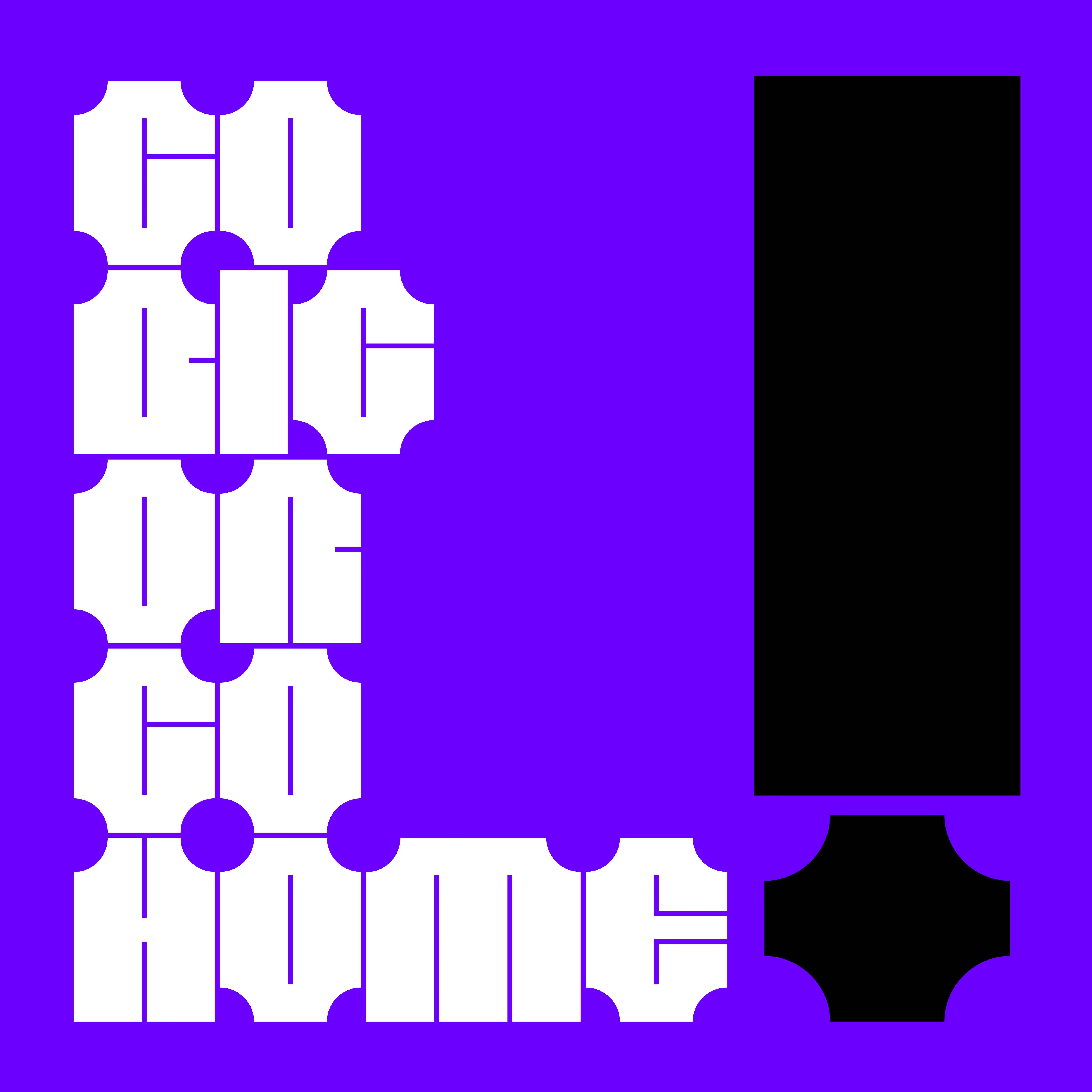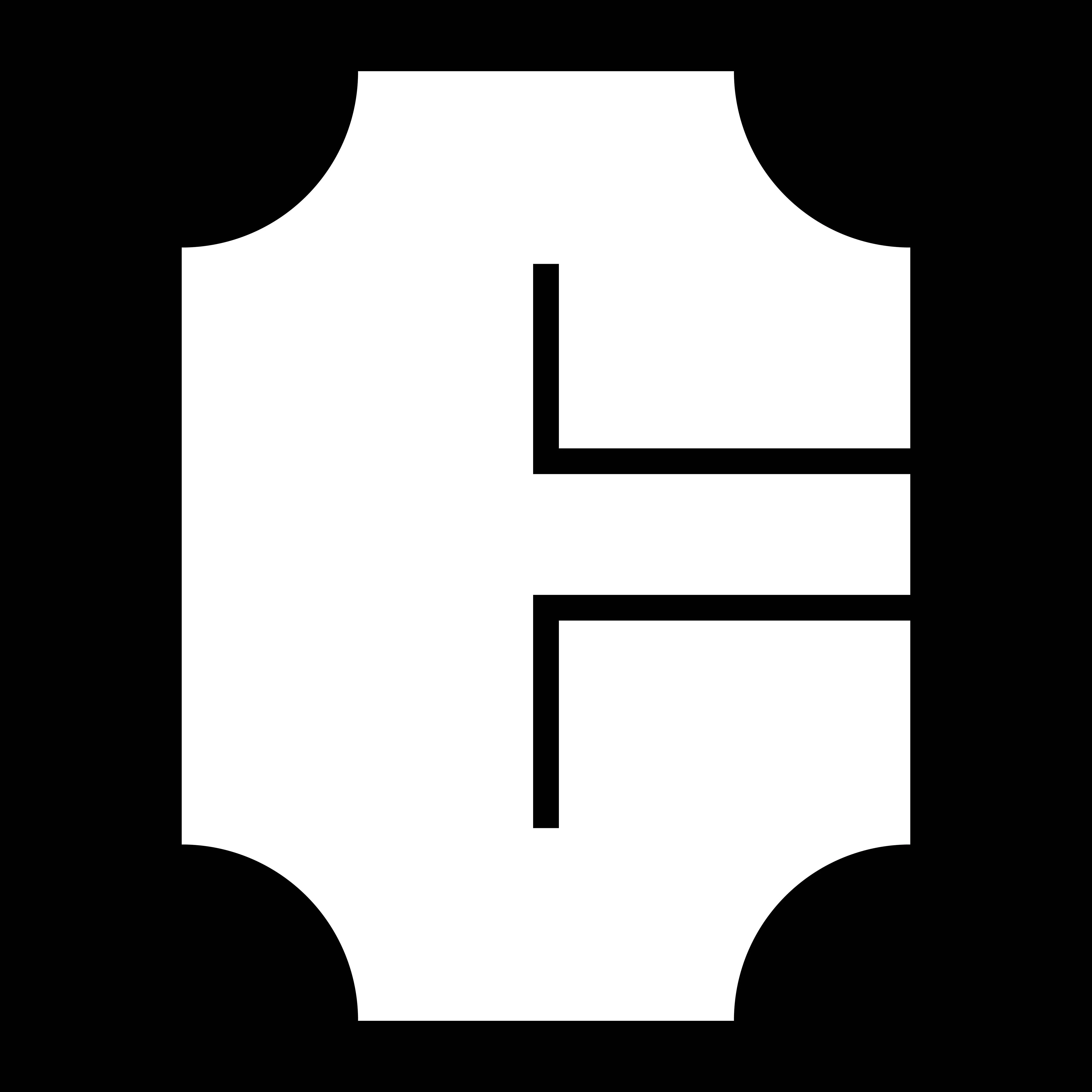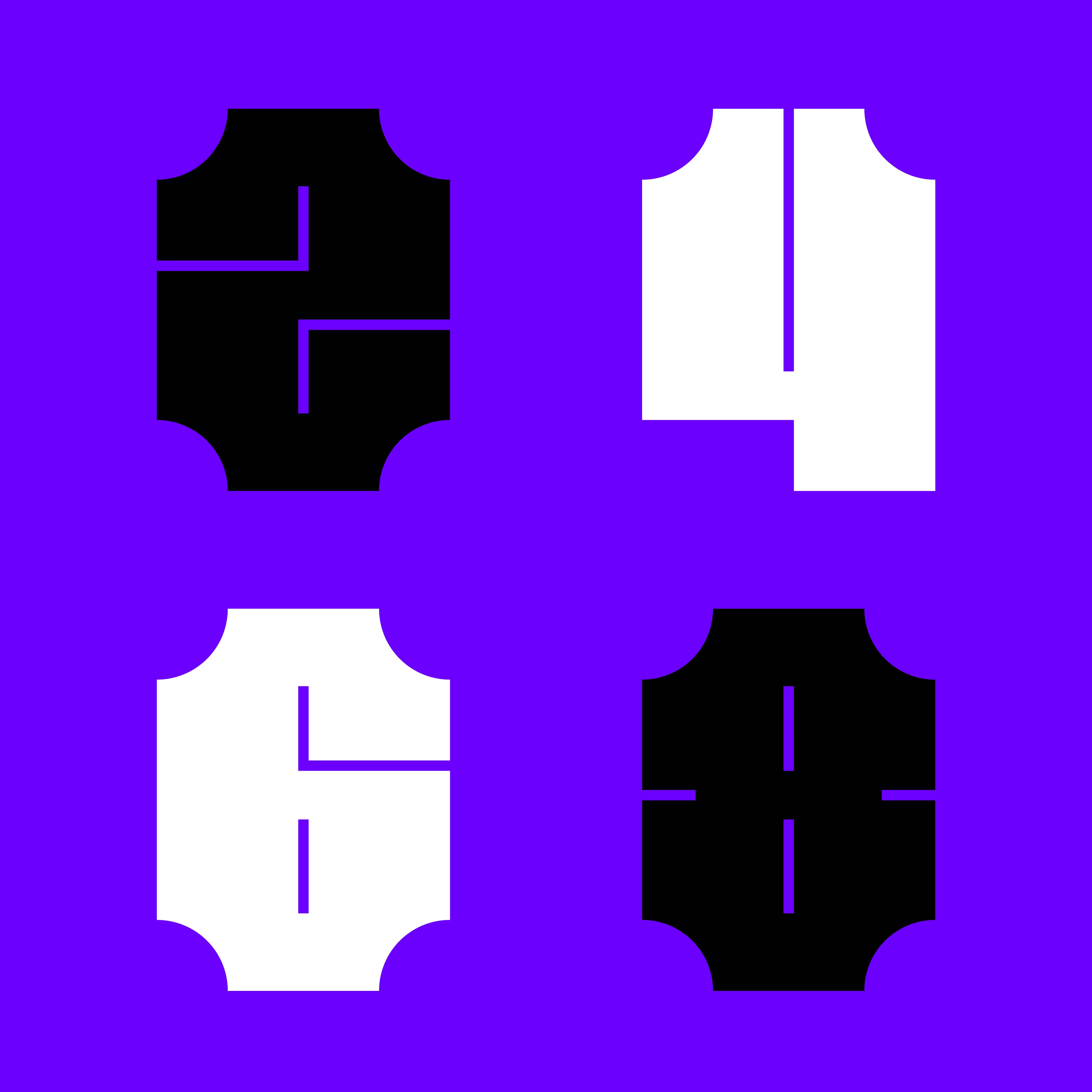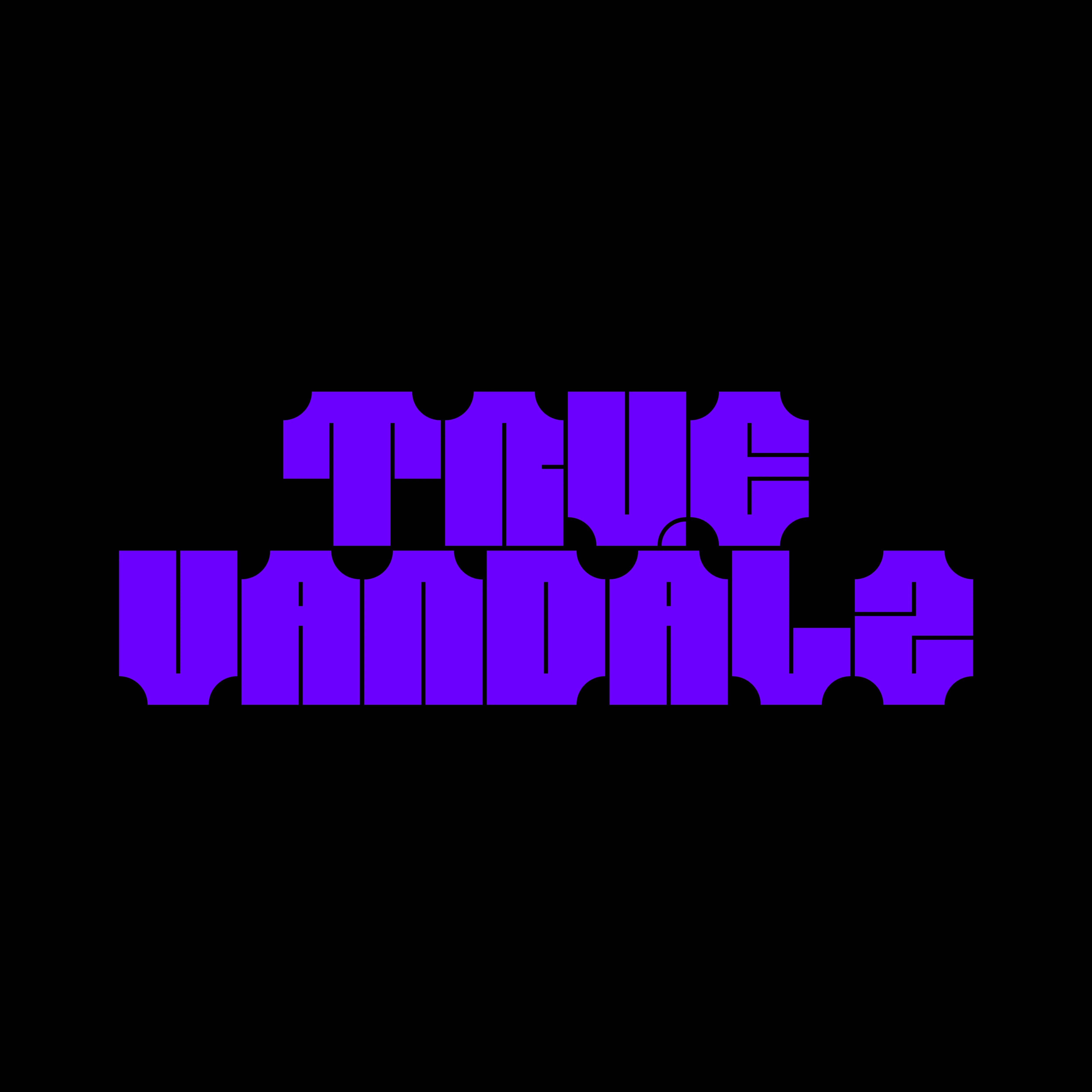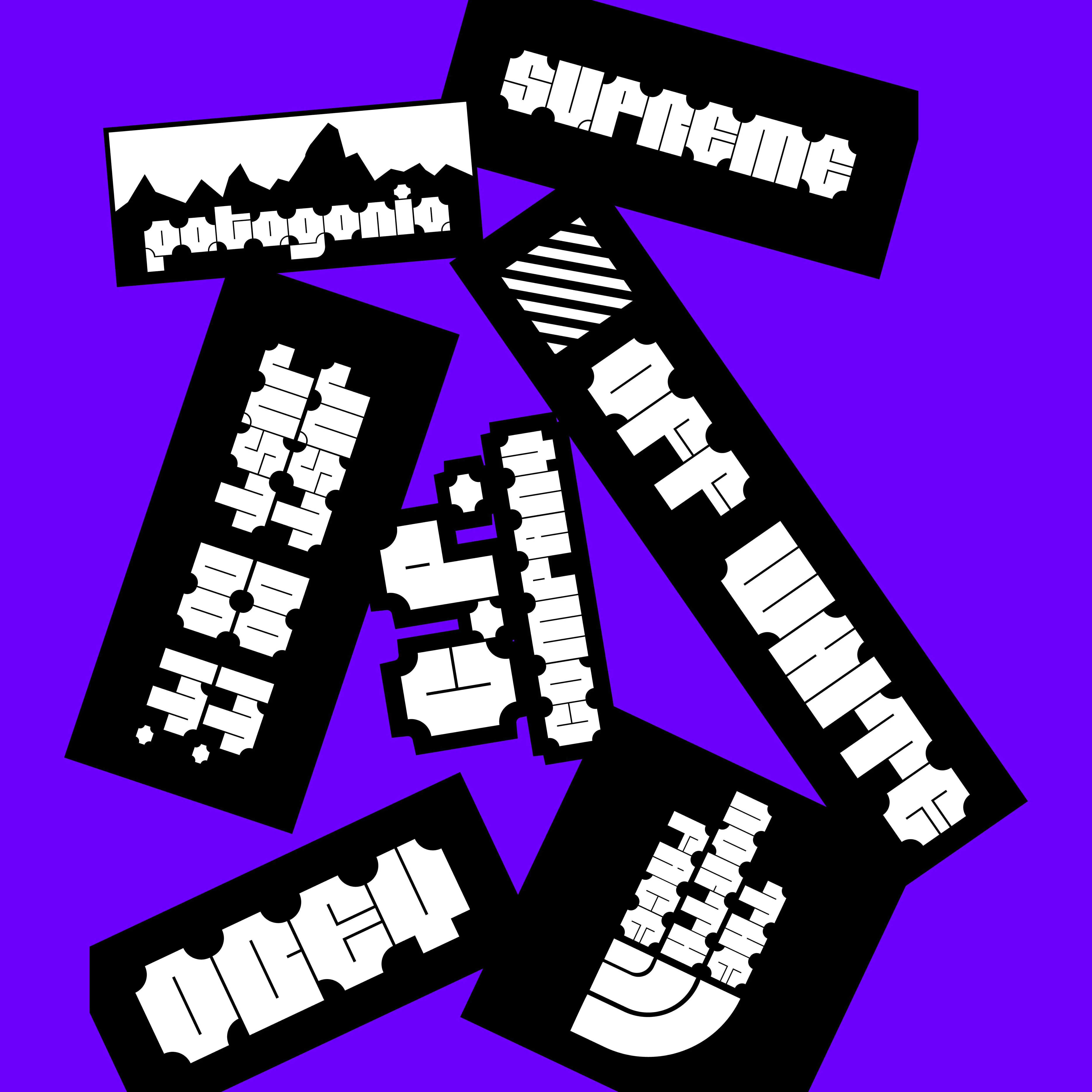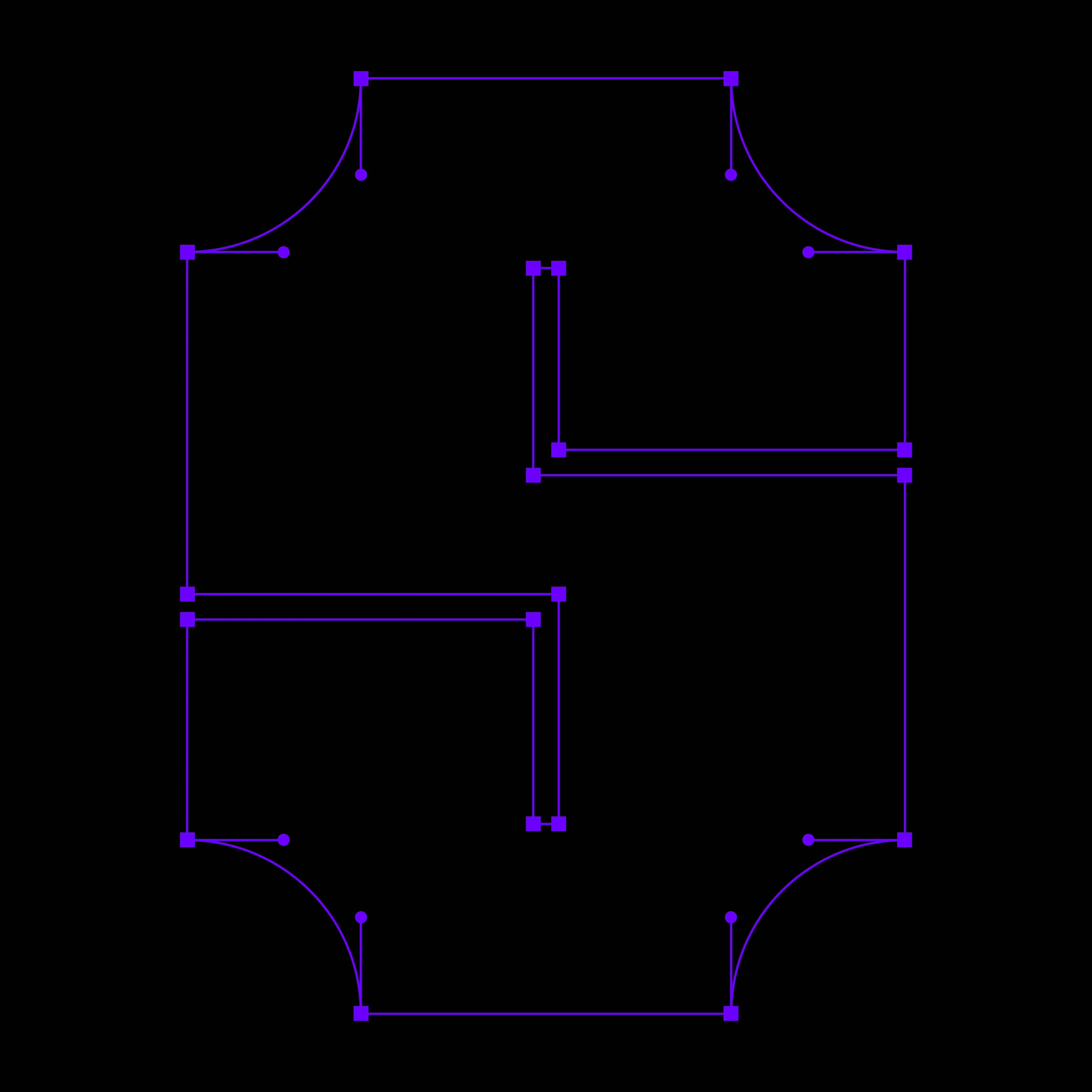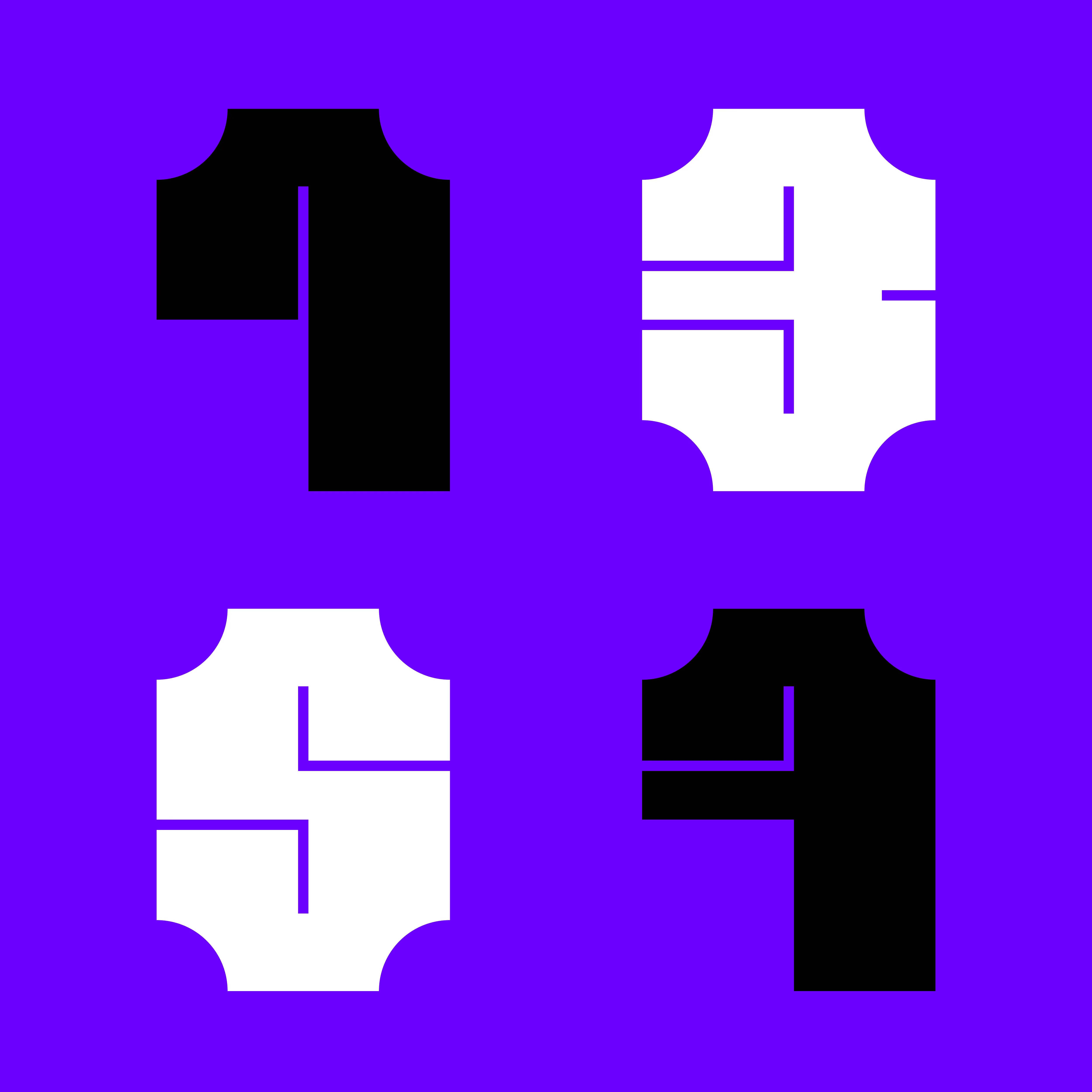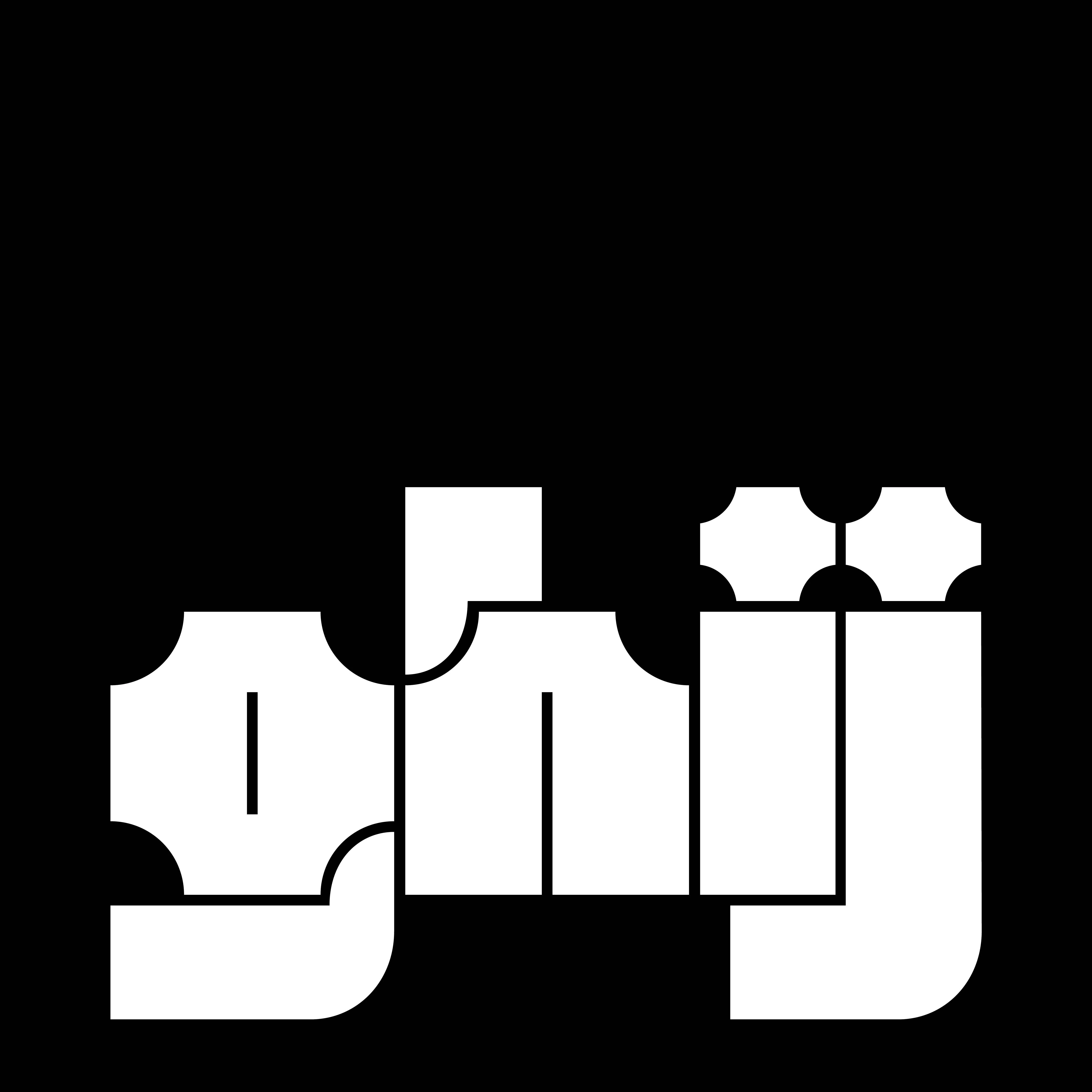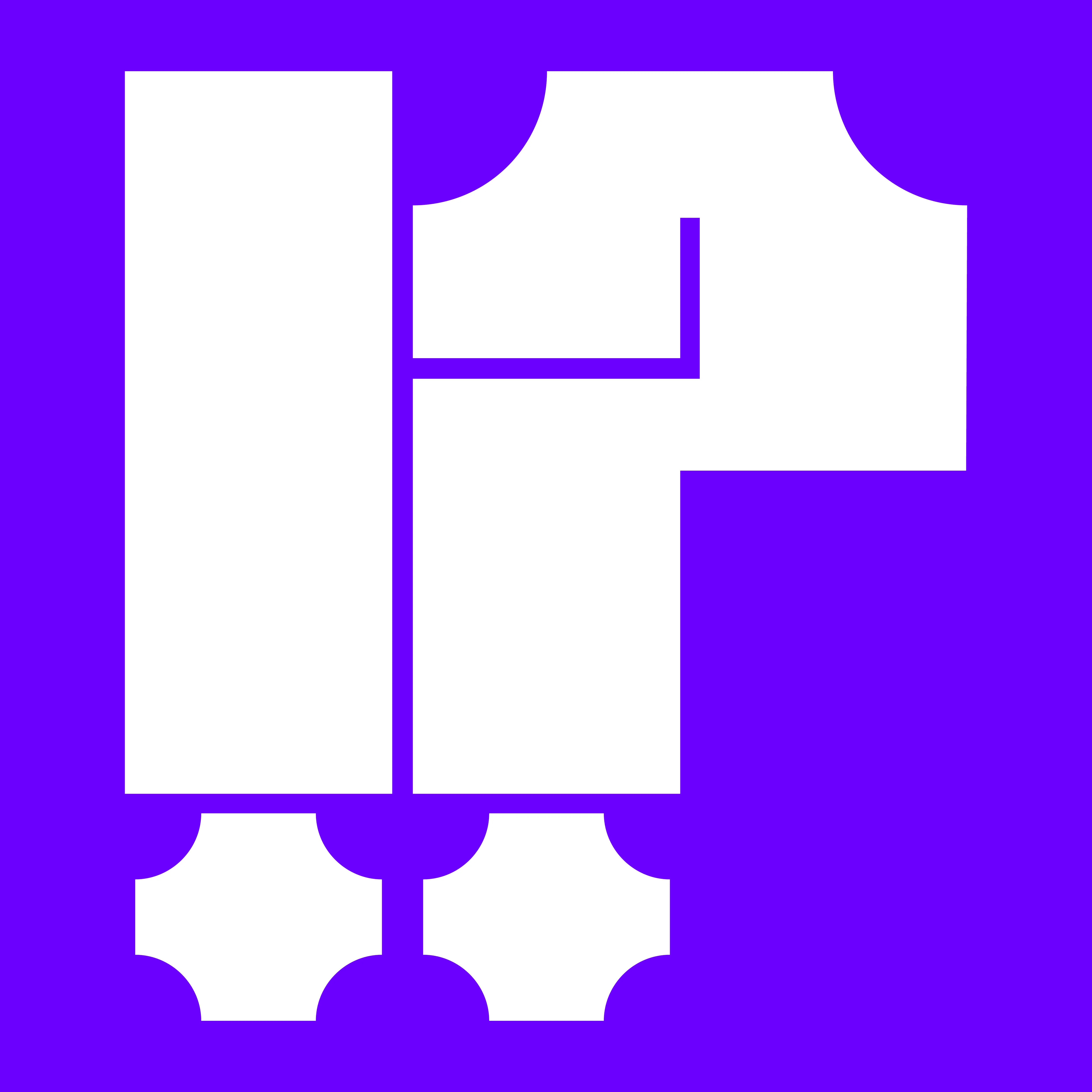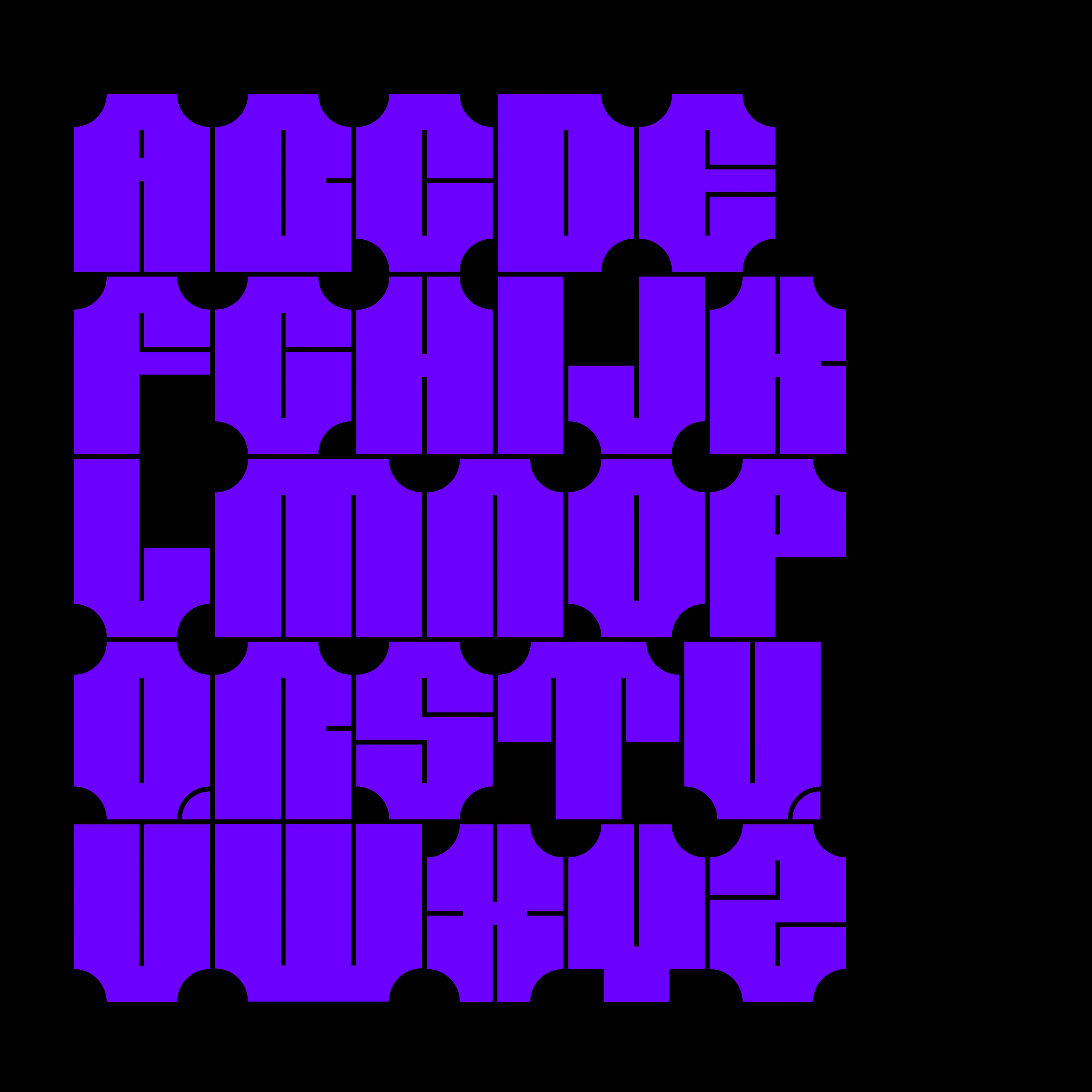
Cross Black
Cross is a display font designed for use in titling and large formats. It contains aesthetic references to the world of architecture and type design. The name Cross refers directly to the primary form – a cross – on which the typeface design is based.
When the typeface is used to compose words and phrases, one can see how each letter completes the outline of the next, thus creating a well-marked rhythm. Central importance is assumed by the whiteness of the spaces between the letters.
Cross is a display font designed for use in titling and large formats. It contains aesthetic references to the world of architecture and type design. The name Cross refers directly to the primary form – a cross – on which the typeface design is based.
When the typeface is used to compose words and phrases, one can see how each letter completes the outline of the next, thus creating a well-marked rhythm. Central importance is assumed by the whiteness of the spaces between the letters.